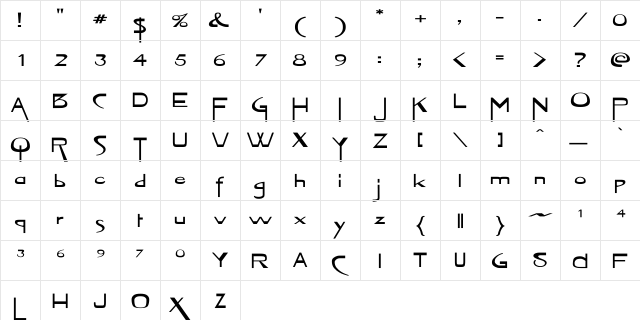
VireoFont Ex Regular
Design Context for VireoFont Ex Typeface
VireoFont Ex is a composed and adaptable typeface that performs quietly and consistently across a wide range of design contexts.